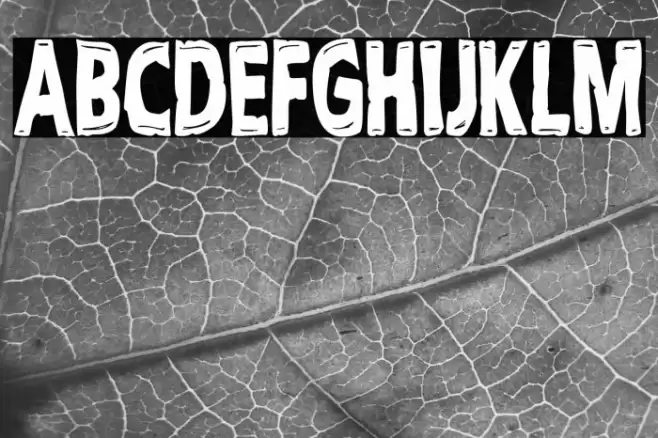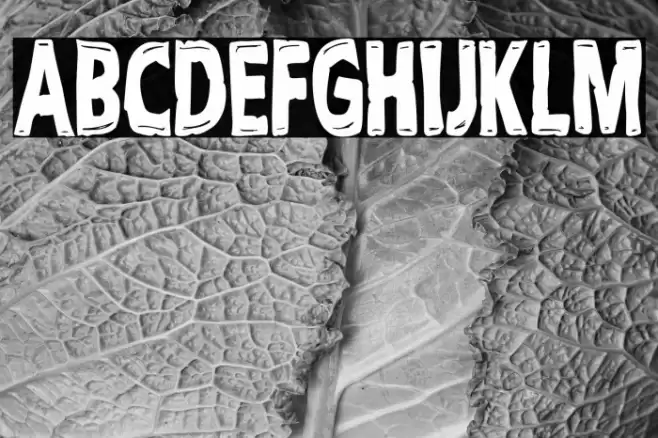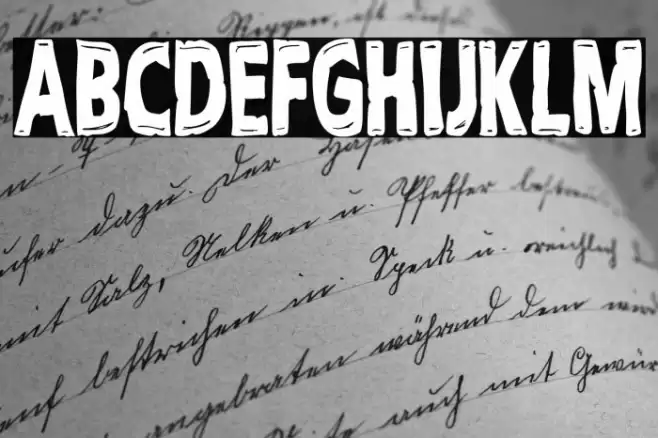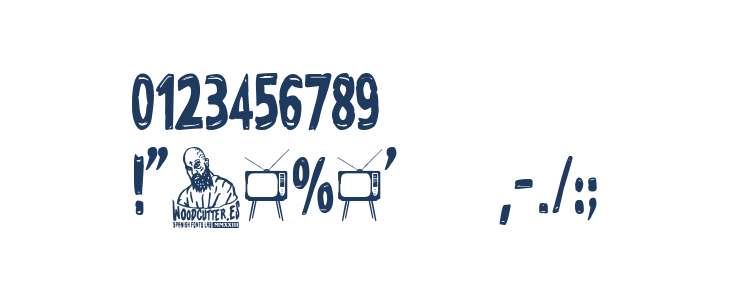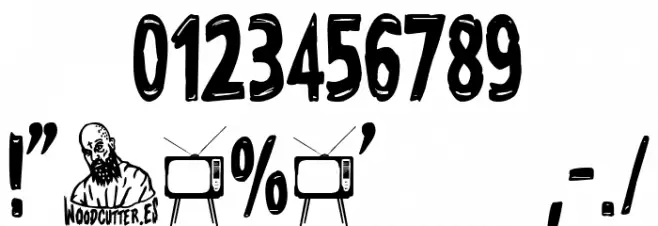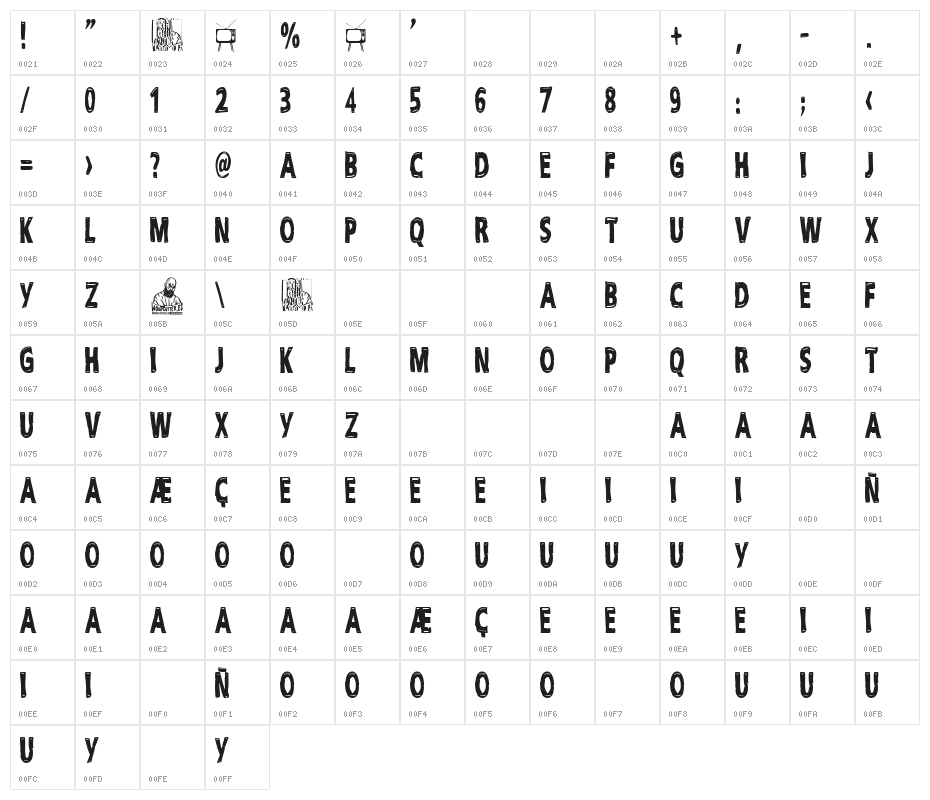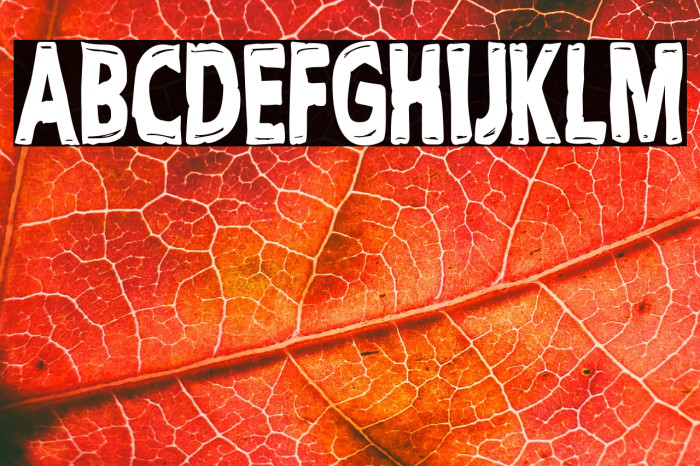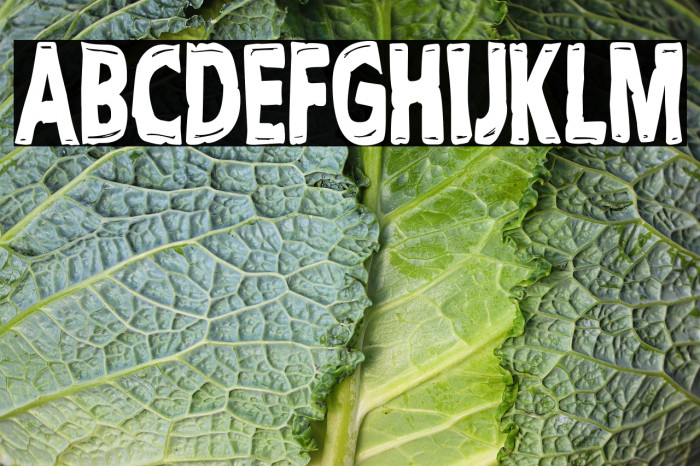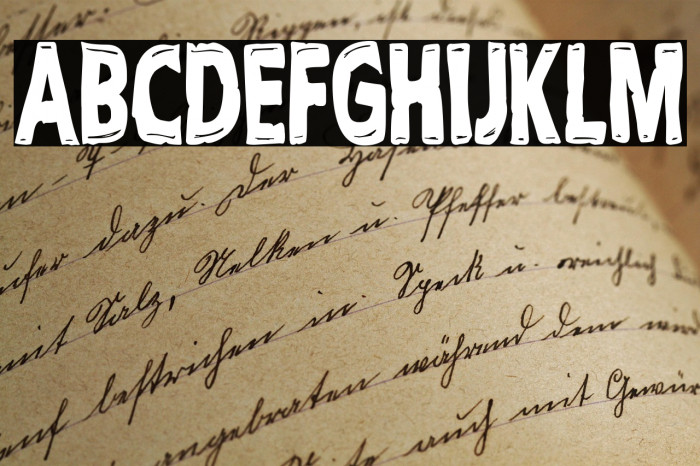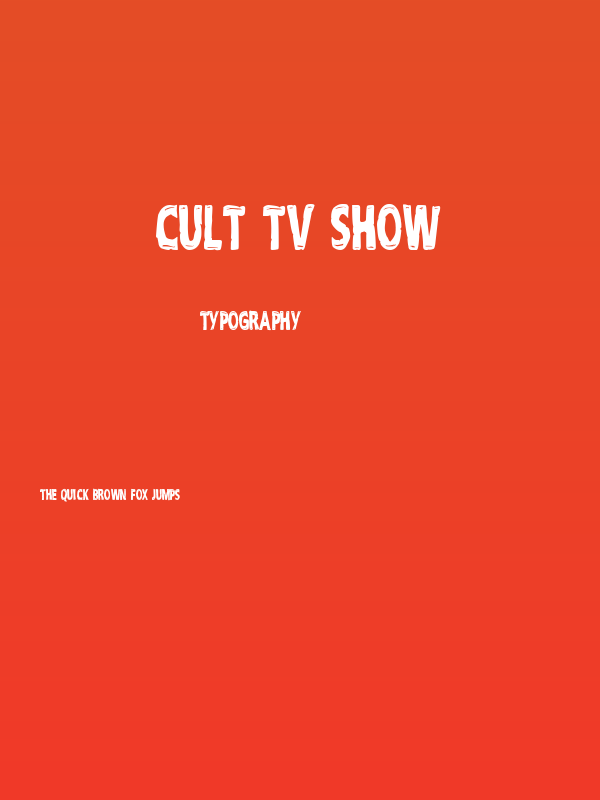
Cult Tv Show Font
Cult Tv Show Description
This font features a bold and playful style with a hand-drawn appearance, giving it a unique and quirky character. The letters are slightly irregular, adding to its informal and casual vibe. The strokes are thick and consistent, providing a strong visual impact. The numbers and special characters maintain the same playful aesthetic, making it versatile for various creative projects. Its distinct style is reminiscent of vintage television graphics, making it ideal for retro-themed designs.
A bold, playful, hand-drawn font with a vintage television vibe from Uncategorized fonts.
- Font: Cult Tv Show
- Proposed Projects: Ideal for retro-themed posters, television show titles, comic book covers, and playful branding.
- Overall Style: Vintage